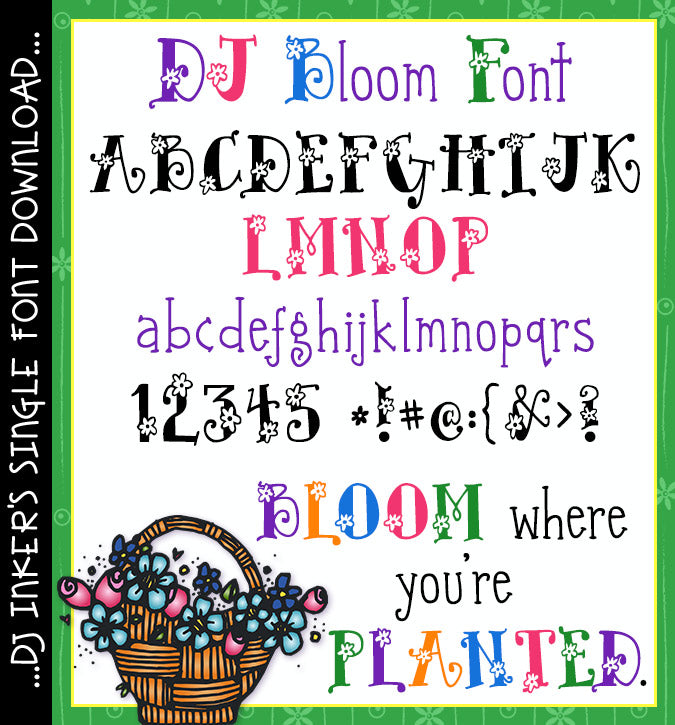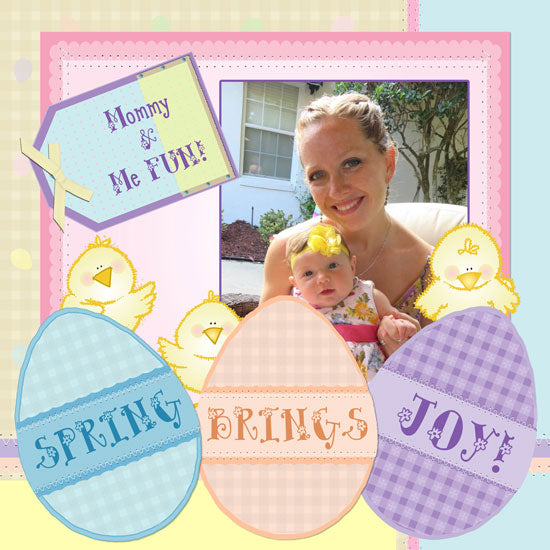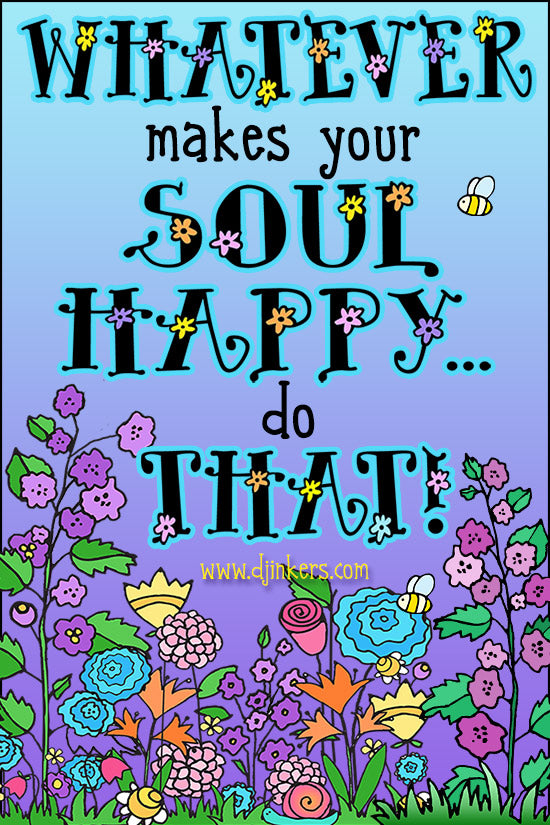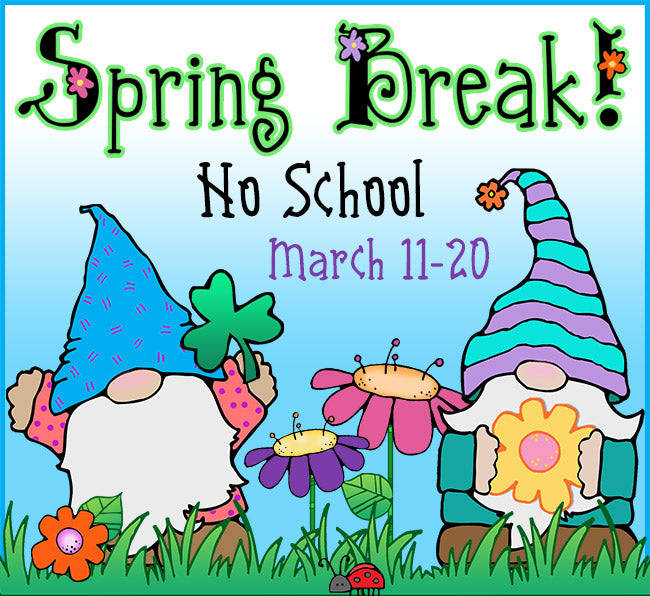
Plant this cute flower font on your projects and watch springtime smiles bloom - DJ Inkers
DJ Bloom Font Download
Plant this cute flower font on your projects and watch springtime smiles bloom - DJ Inkers
DJ Bloom Font Download
Plant this delightful flower font on your projects and watch the smiles bloom! Perfect for headlining spring activities, newsletters, calendars, bulletin boards, nameplates, garden club, Mother's Day greetings and more. Want to sow a smile when you type? Pick a few different colors and play with a fresh garden of fun.